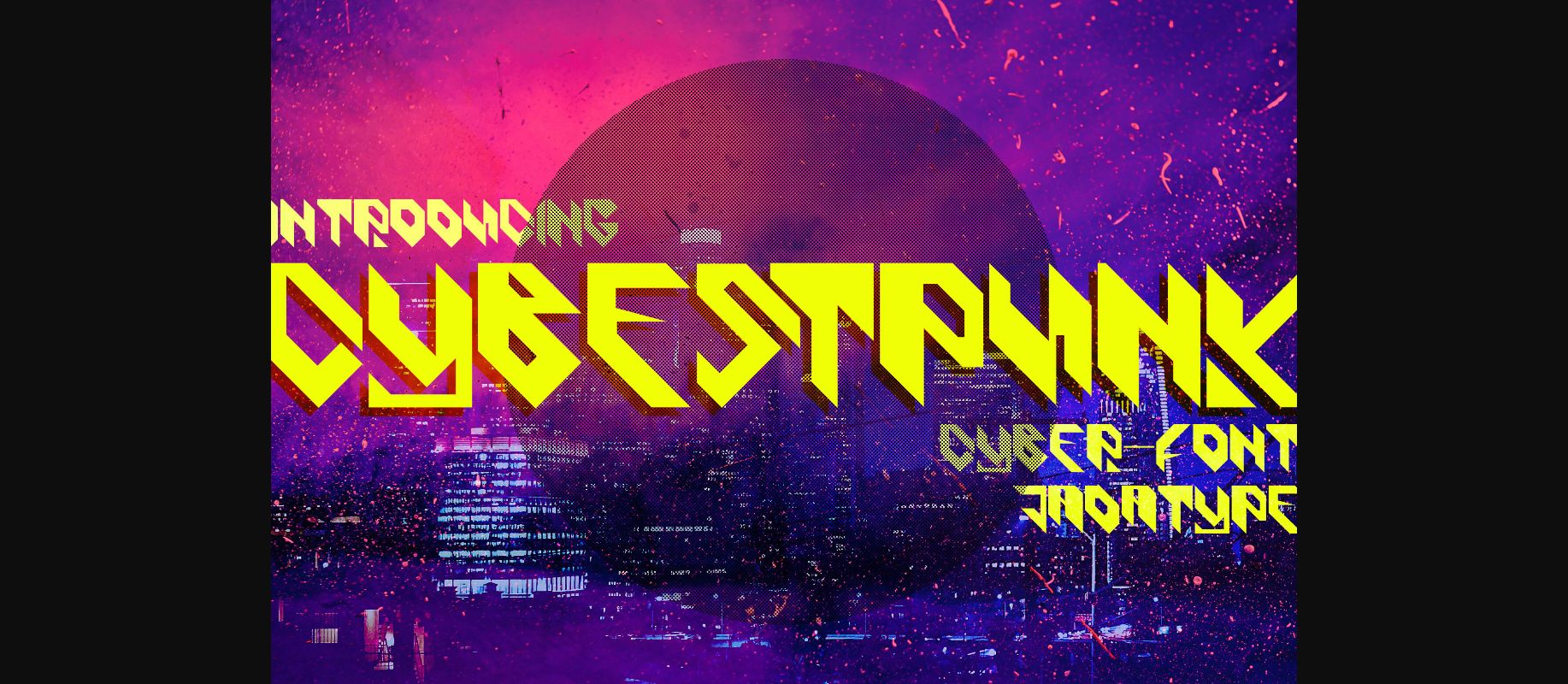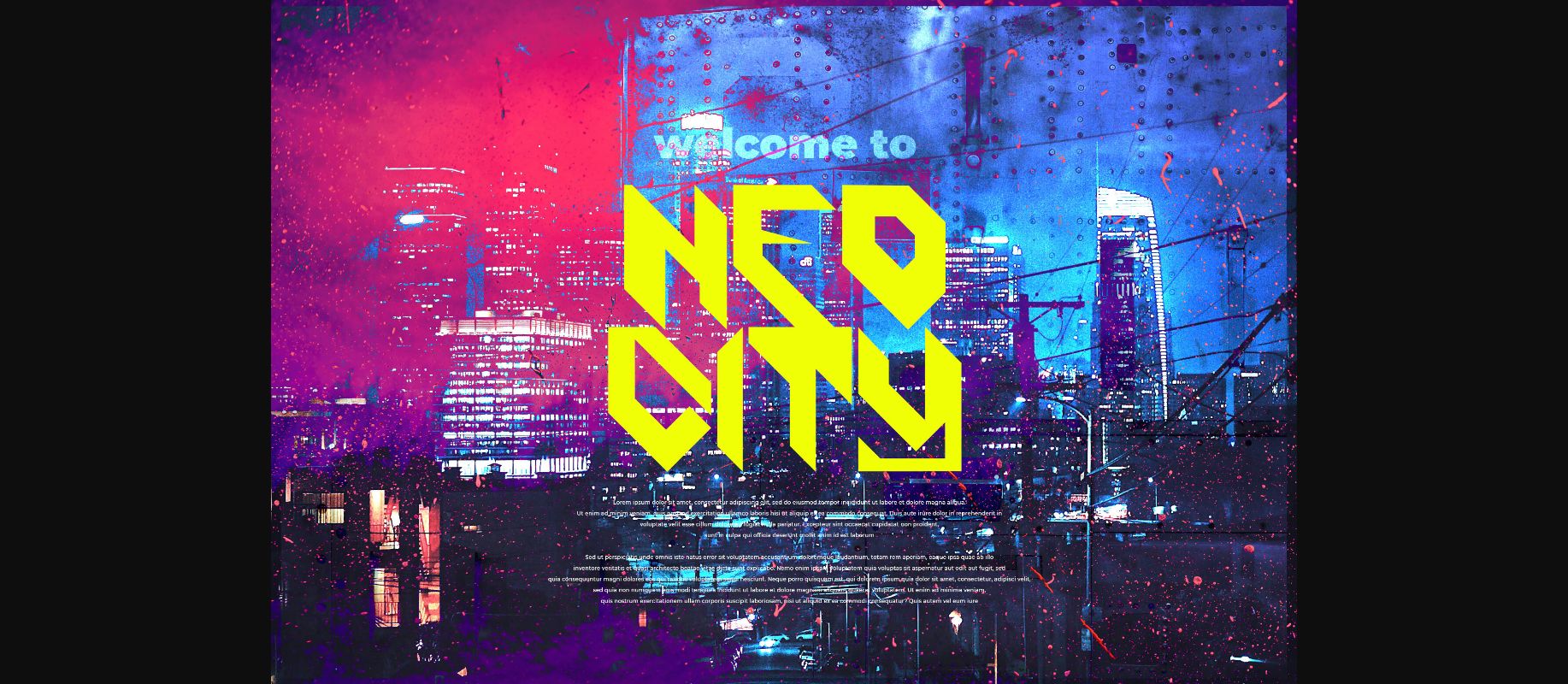
About Cybestpunk Font
Cybestpunk is a display font that comes with a cyber tech style. suitable for tshirt, branding, social media, and so on. contains standard English letters, numbers, punctuation, and several accents that support multilingualism. Can be installed on applications such as adobe family, affinity, and Ms. Word